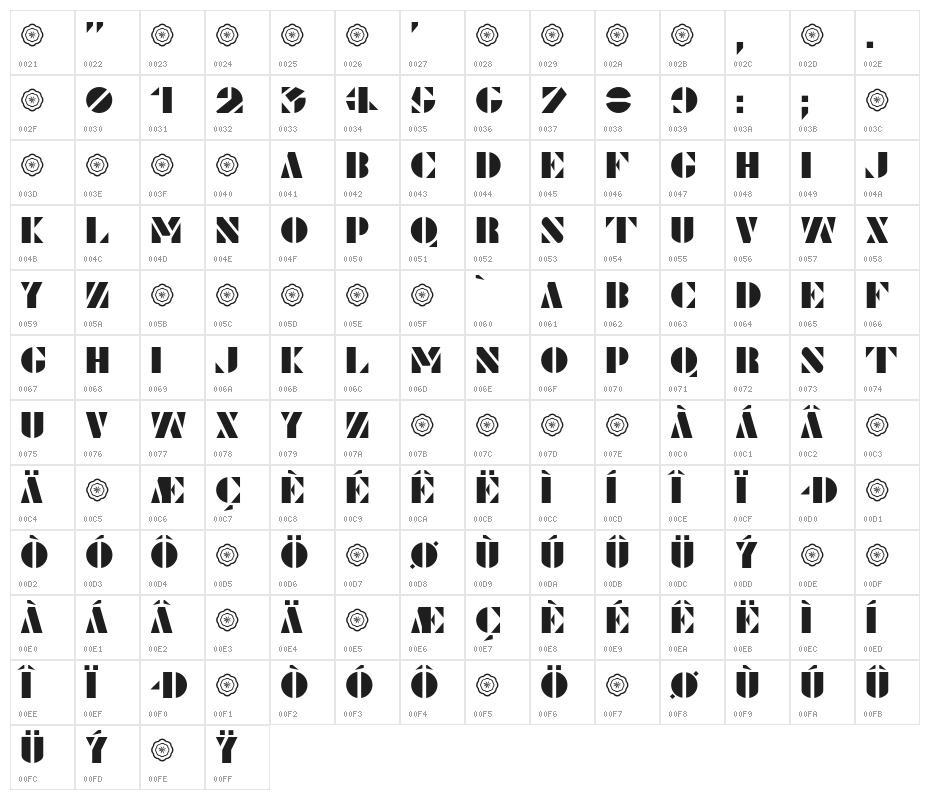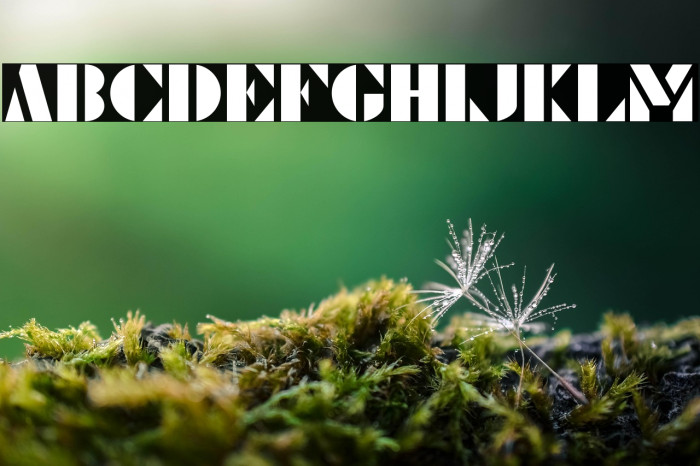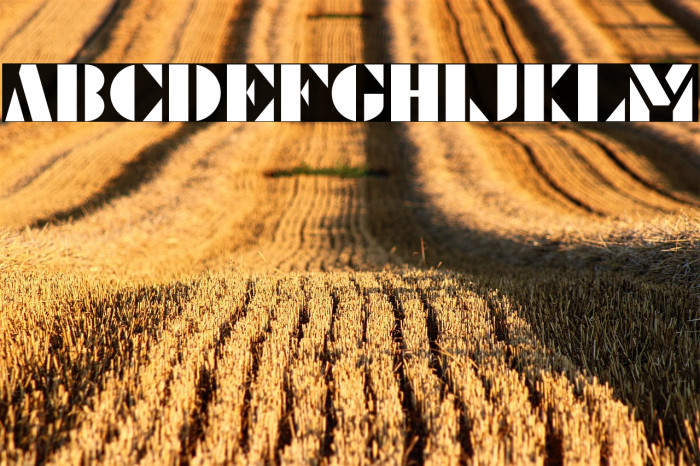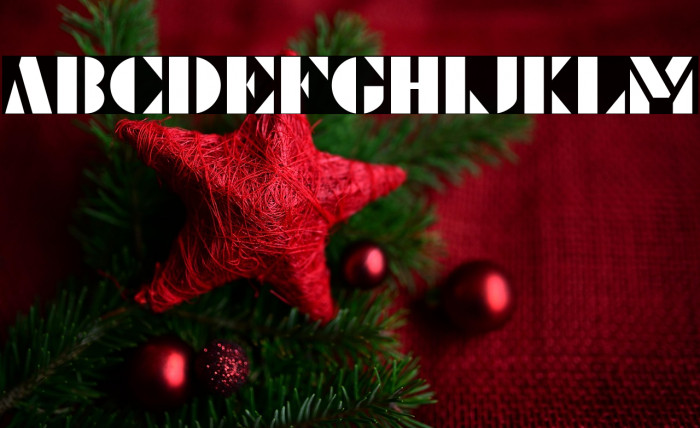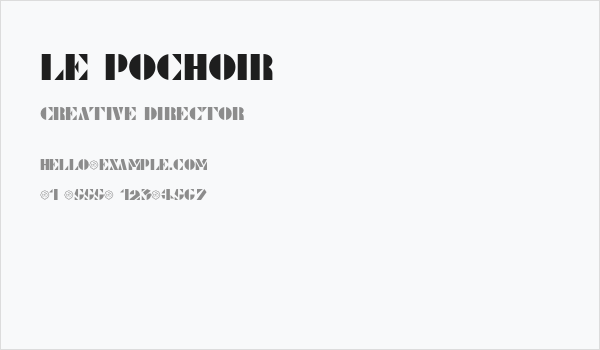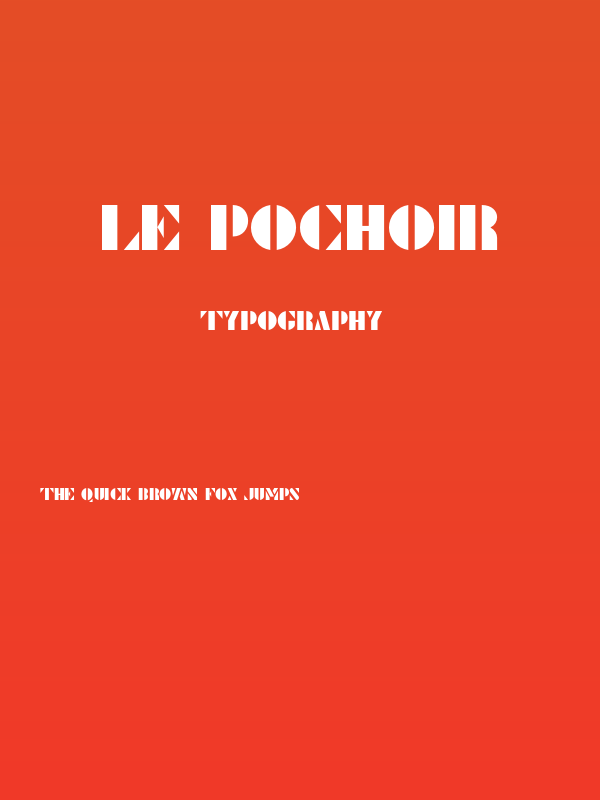
Le Pochoir Font
Le Pochoir Description
This font features a bold, geometric design with a stencil-like appearance. Each character is constructed with sharp angles and clean lines, creating a striking and modern look. The use of negative space within the letters enhances its stencil style, making it ideal for impactful designs. The uppercase and lowercase letters maintain a consistent style, while the numbers and special characters complement the overall aesthetic. This font is perfect for projects that require a bold statement, such as posters, logos, and signage.
| Use Case | Headlines, Logos, Signage |
| Proposed Projects | Ideal for posters, logos, signage, and any design requiring a bold, modern statement. |